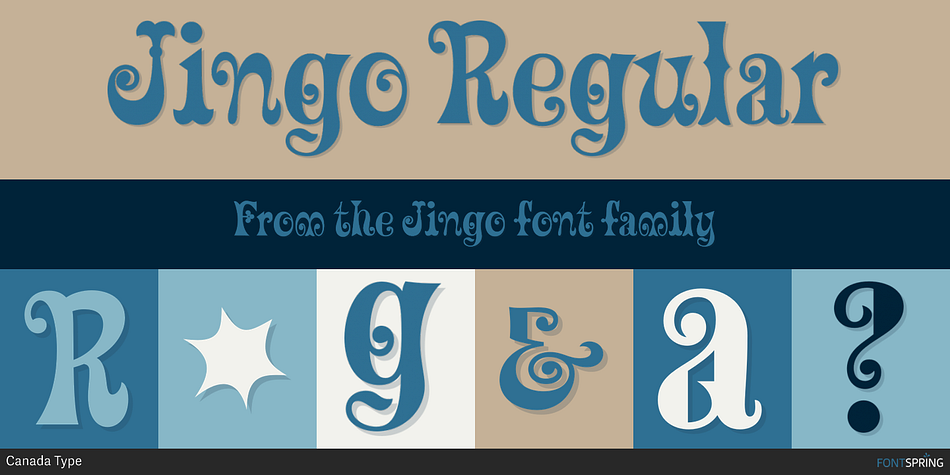
Designed by Patrick Griffin, Jingo is a retro font published by Canada Type.
This is the digital makeover and major expansion of a one-of-a-kind melting pot experiment done by VGC and released under the name Mardi Gras in the early 1960s. It is an unexpected jambalaya of Art Nouveau, Tuscan, wedge serifs, curlycues, ball endings, wood type spurs and swashes, geometry and ornamental elements that on the surface seem to be completely unrelated. But the totality works in a surprisingly loud and playful way that really defies categorization.
Jingo is really five fonts in one: Over 1000 glyphs, four character sets, ornaments, swashes and ligatures. The forms are interchangeable in uppercase, lowercase and unicase settings. There is nothing low-key about this typeface. It is well suited for use on posters and book covers that require happy weirdness. But most of all it’s great for those who like to fiddle with their type setting until amazingly conicidental pleasantnesses ensue. If you’re that kind of designer and you know what you’re doing, get Jingo, start up that glyph palette, and play away.